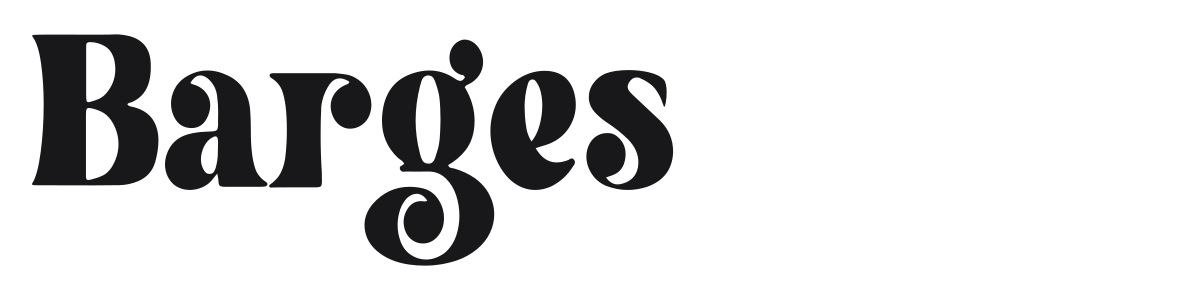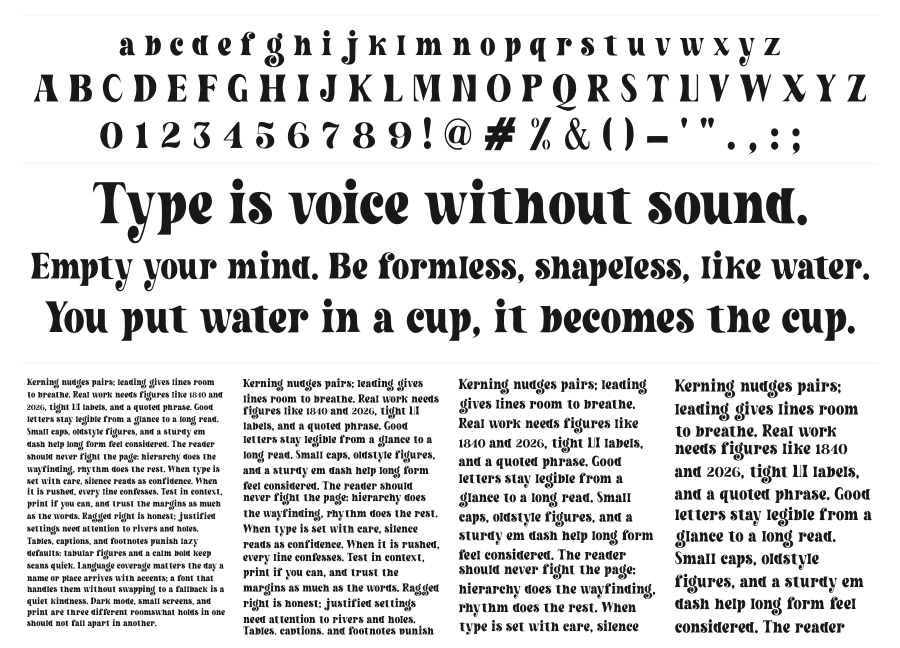
Barges
Barges is a heavy display serif with extreme stroke contrast and ornamental ball terminals that curl into decorative spirals. It draws from Victorian and Didone traditions but pushes the weight well past conventional limits, giving it a theatrical, fashion-editorial energy. Best used large, where the contrast between hairline and stem really hits.